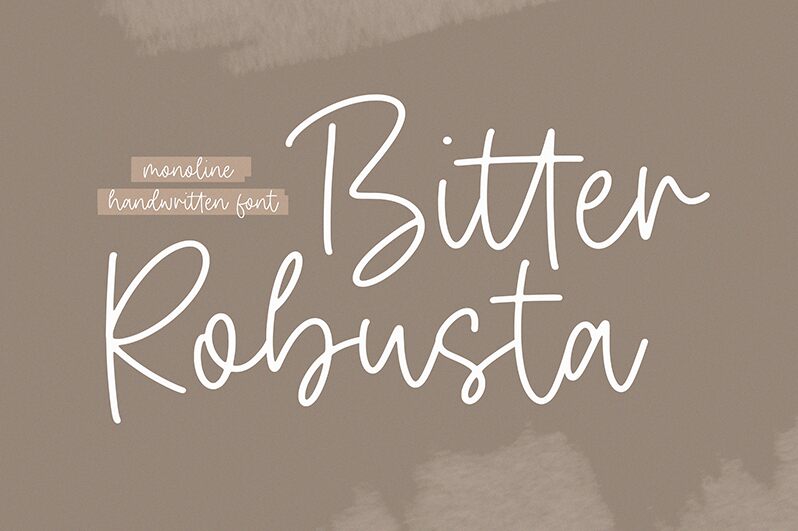
Bitter Robusta
Bitter Robusta, a creation of Timur Type, is a font that exudes charm and elegance through its handwritten style, crafted with a light touch. This font's aesthetic appeal lies in its ability to convey warmth and personality, making it an exceptional choice for designs that require a touch of intimacy and flair. The delicate strokes and artful loops of Bitter Robusta give it a distinctively human feel, setting it apart from more mechanical typefaces.
Ideal for invitations, branding materials, or any project that benefits from handcrafted sensibilities, Bitter Robusta's light weight ensures that your text remains legible while retaining an airy grace. Whether used in print or digital formats, this font can infuse your creative works with the bespoke quality of ink on paper. Its versatility extends to editorial design as well; imagine it bringing titles and pull quotes to life with its stylized yet readable form.
Embrace the unique characteristics of Bitter Robusta to enrich your next design project with its sophisticated handwritten charm.